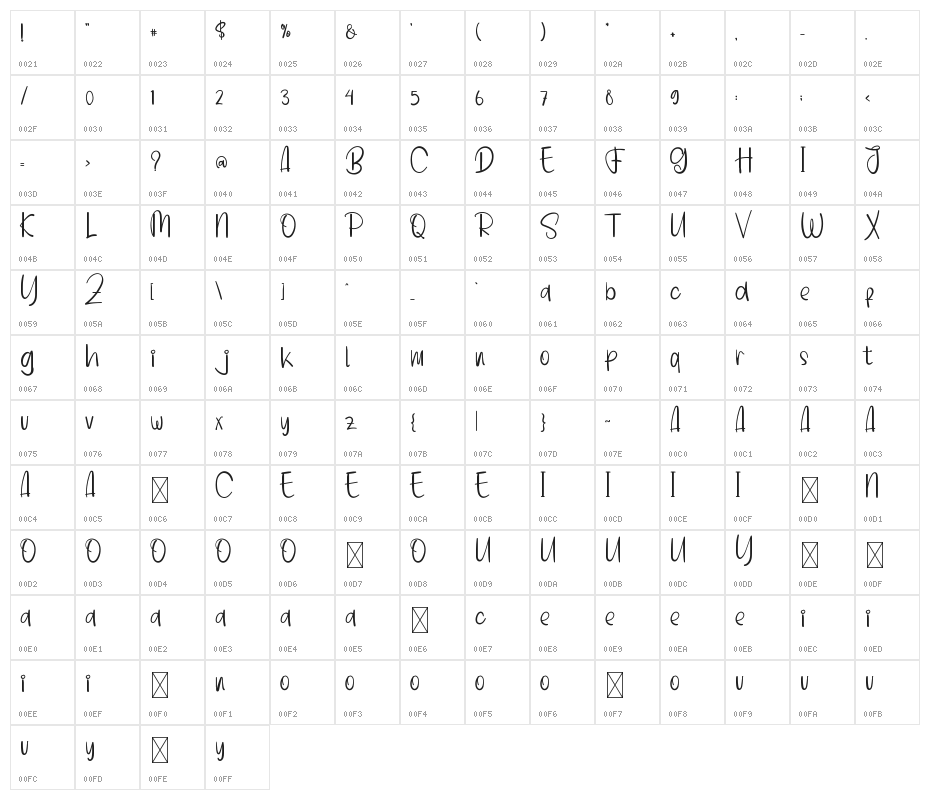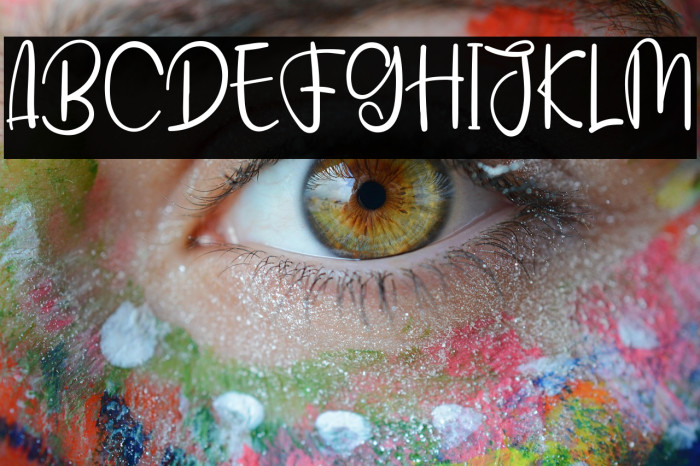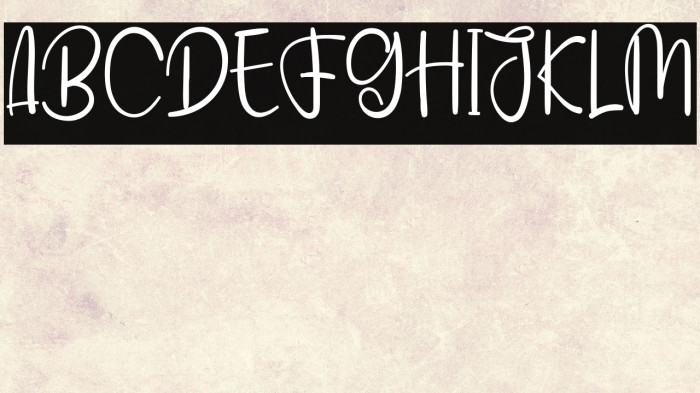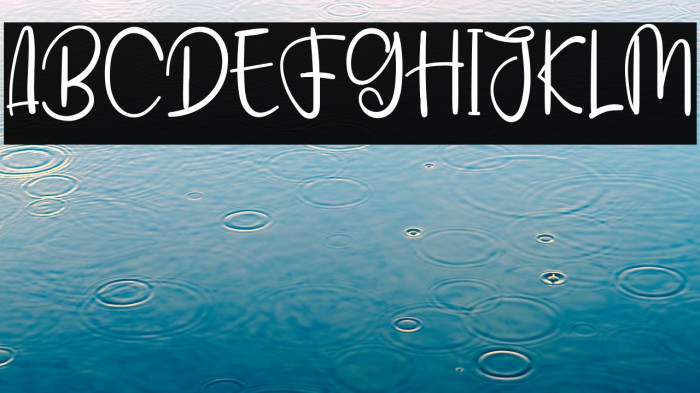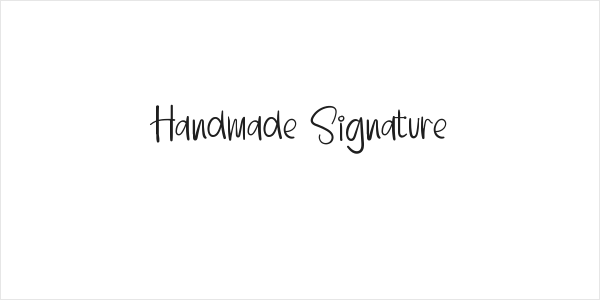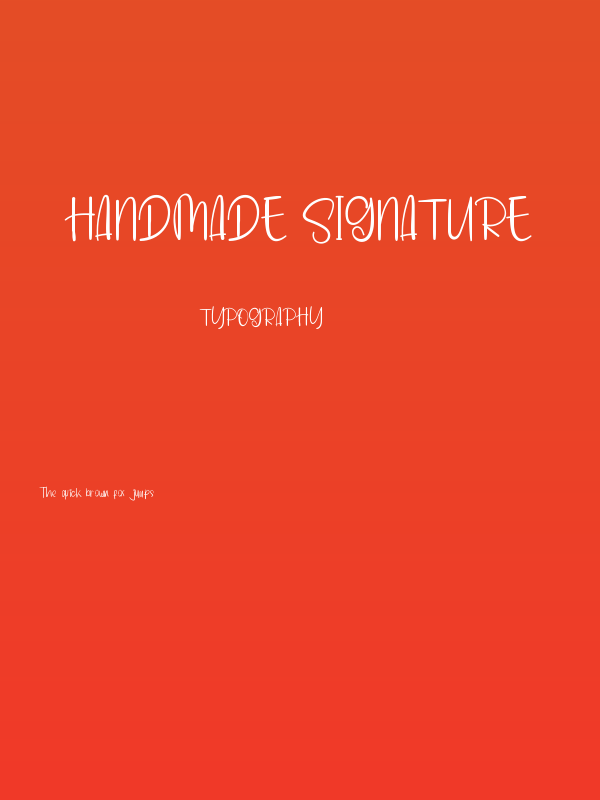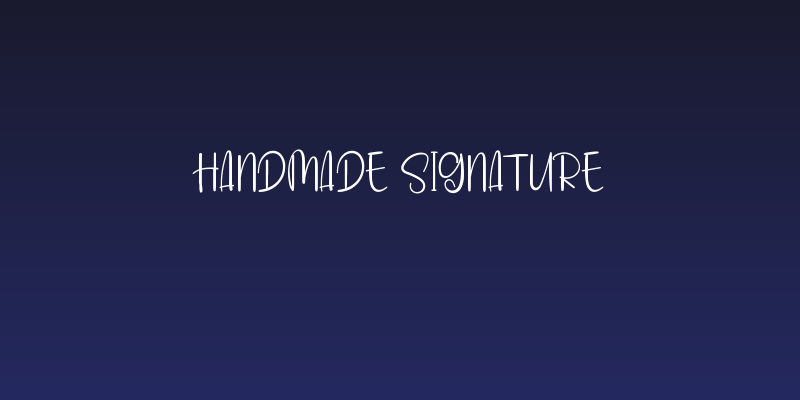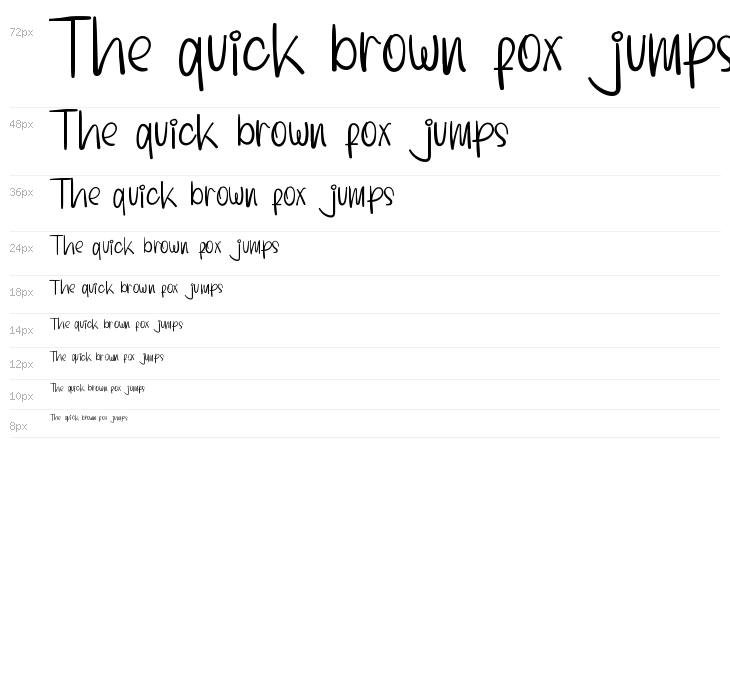
Handmade Signature Font
Handmade Signature Description
This font features a playful and casual handwritten style, characterized by its flowing and slightly irregular letterforms. The uppercase letters are tall and slender, with a whimsical touch, while the lowercase letters maintain a consistent, friendly appearance. The numerals are clear and easy to read, complementing the overall style. Special characters are designed with the same playful flair, making them suitable for creative projects. The font's unique personality makes it ideal for projects that require a personal touch, such as greeting cards, invitations, and branding materials.
| Overall Style | Casual, Playful |
| Use Case | Headlines, Logos, Invitations |
| Proposed Projects | Ideal for greeting cards, invitations, branding materials, and creative projects. |